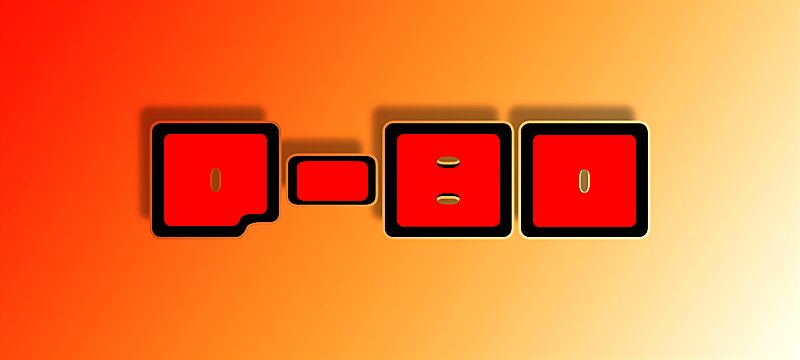
Cubo by Carlos Matteoli is a free techno display font with broad, rounded letters and a dense, almost architectural silhouette. Small rectangular openings and clipped notches break into the heavy forms, creating a playful machine-made pattern across the alphabet.
An arcade poster is its strongest setting, with the oversized shapes also fitting game graphics, music artwork, and youth-focused merchandise. Those recurring slots and cutouts can echo buttons, vents, or illuminated panels in the surrounding artwork.